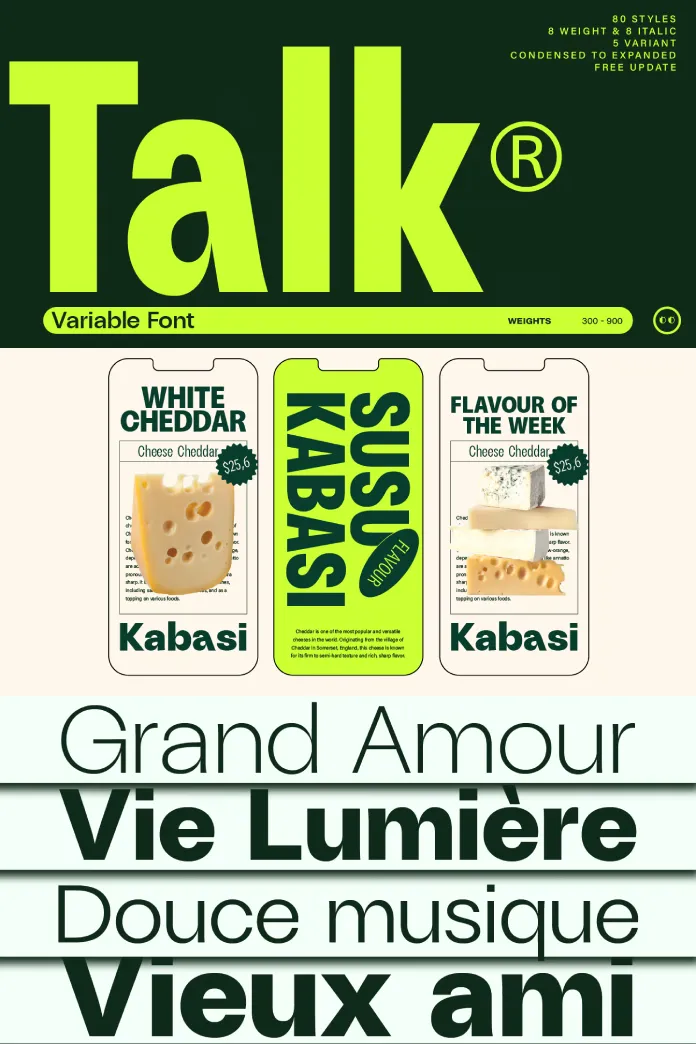
Let’s explore the typographic features of Zelow Type’s Talk font family.
The ZT Talk font family by Zelow Type is a testament to a journey filled with struggle and courage to create something unforgettable. This typeface, reminiscent of the late 1980s and early 1990s, captures the essence of that era while integrating contemporary design elements to offer unmatched versatility and sophistication.
ZT Talk boasts five distinct variants: Condensed, Semi Condensed, Normal, Semi Expanded, and Expanded. This array provides designers with a broad spectrum of options to tailor their projects with precision. Whether you need tight spacing for compact designs or expanded forms for more open and airy layouts, ZT Talk accommodates every need with ease.
Extensive Style Range
With 80 unique styles in its arsenal, ZT Talk offers unparalleled flexibility in design. The font family includes eight weights, ranging from Light to Black, each available in both regular and italic forms. This comprehensive collection ensures a clear and effective text hierarchy, making it ideal for a variety of applications, from headlines and branding to body text and digital interfaces.
Multilingual Support
One of the standout features of ZT Talk is its extensive multilingual support. This font family covers multiple languages and accents, enabling designers to effortlessly reach a global audience. The thoughtful inclusion of various linguistic characters ensures that your message remains consistent and clear, regardless of the language.
Visual Cohesion
Despite the numerous styles and variants, ZT Talk maintains a consistent visual cohesion throughout the entire font family. This unity ensures harmony in your design projects, providing a seamless and professional look. Each character, dot, and line is meticulously crafted to encourage the exploration of diversity and complexity in design.
Modern Elegance
ZT Talk exudes a modern touch with sharp angles and clean lines, making it suitable for a wide range of contemporary design projects. Its elegant appearance is perfect for creating stunning branding, captivating layouts, and engaging digital content. The font’s design effortlessly blends modern aesthetics with nostalgic elements, offering a unique and timeless appeal.
Optimal Quality
Carefully crafted for optimal quality, ZT Talk delivers the clarity and perfection expected from a premium font. Each weight and variant is designed to achieve the perfect balance between readability and beauty, ensuring that your designs stand out with precision and finesse.
A Call to Creativity
ZT Talk is an invitation to write extraordinary stories. This typeface is a loyal companion ready to help bring any creative vision to life. Welcome to a new era of design expression, where every point and letter becomes part of an unforgettable narrative.
Key Features:
- 80 Styles: Offers unmatched design flexibility.
- 5 Variants: Condensed, Semi Condensed, Normal, Semi Expanded, and Expanded.
- 8 Weights & Italics: From Light to Black, ensuring clear text hierarchy.
- Multilingual Support: Effortlessly reach a global audience.
- Consistent Visual Cohesion: Unified appearance across styles.
- Modern and Elegant Design: Perfect for contemporary projects.
- Optimal Quality: Clarity and perfection in every detail.
Zelow Type’s Talk font family is an unstoppable engine for your imagination. Each variant and weight has been carefully assembled to achieve the perfect balance of clarity and beauty. Embrace this extraordinary font family and let it help you craft a story that will be remembered.